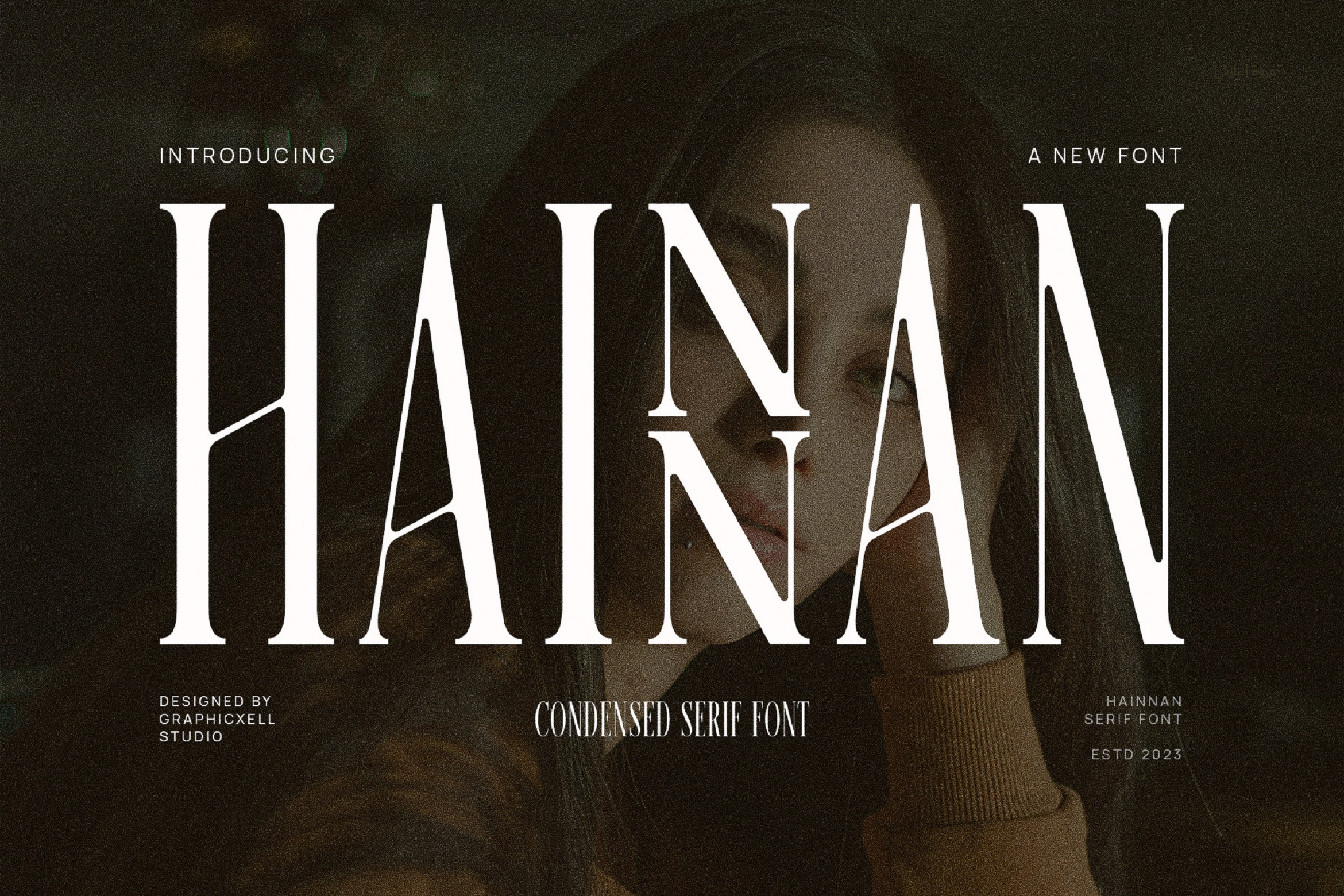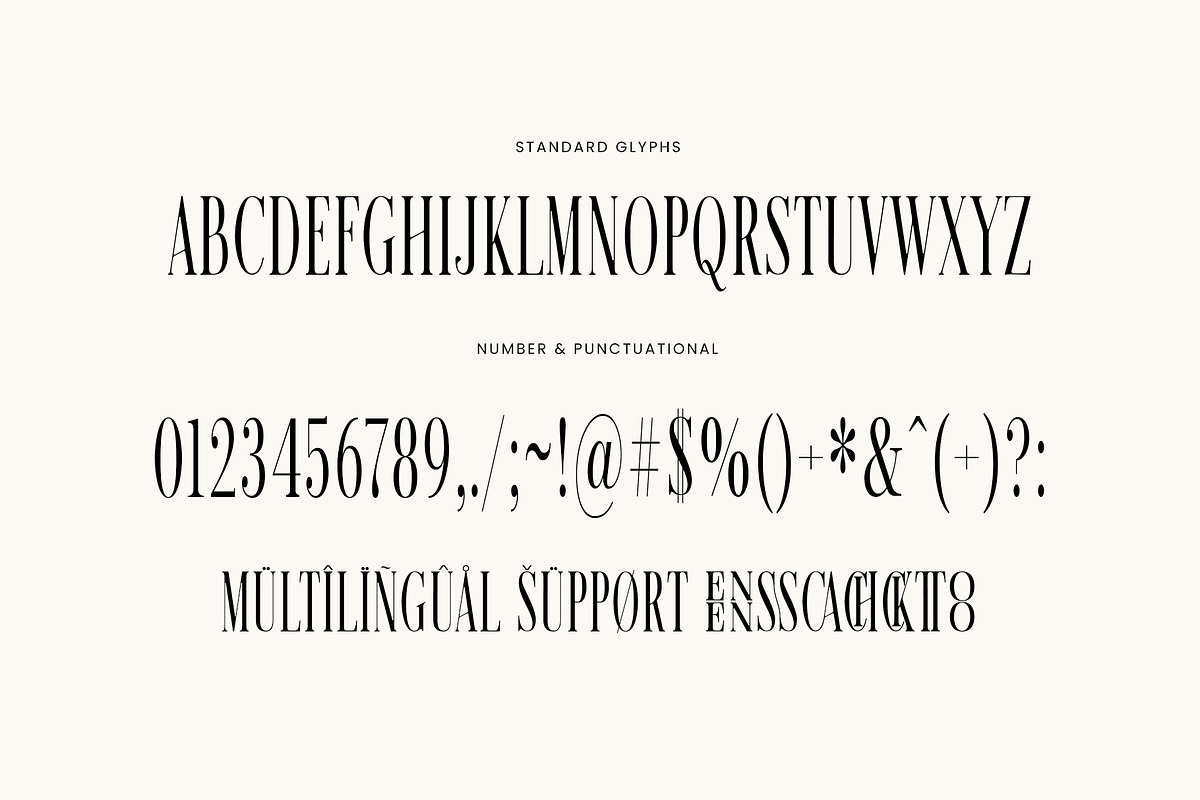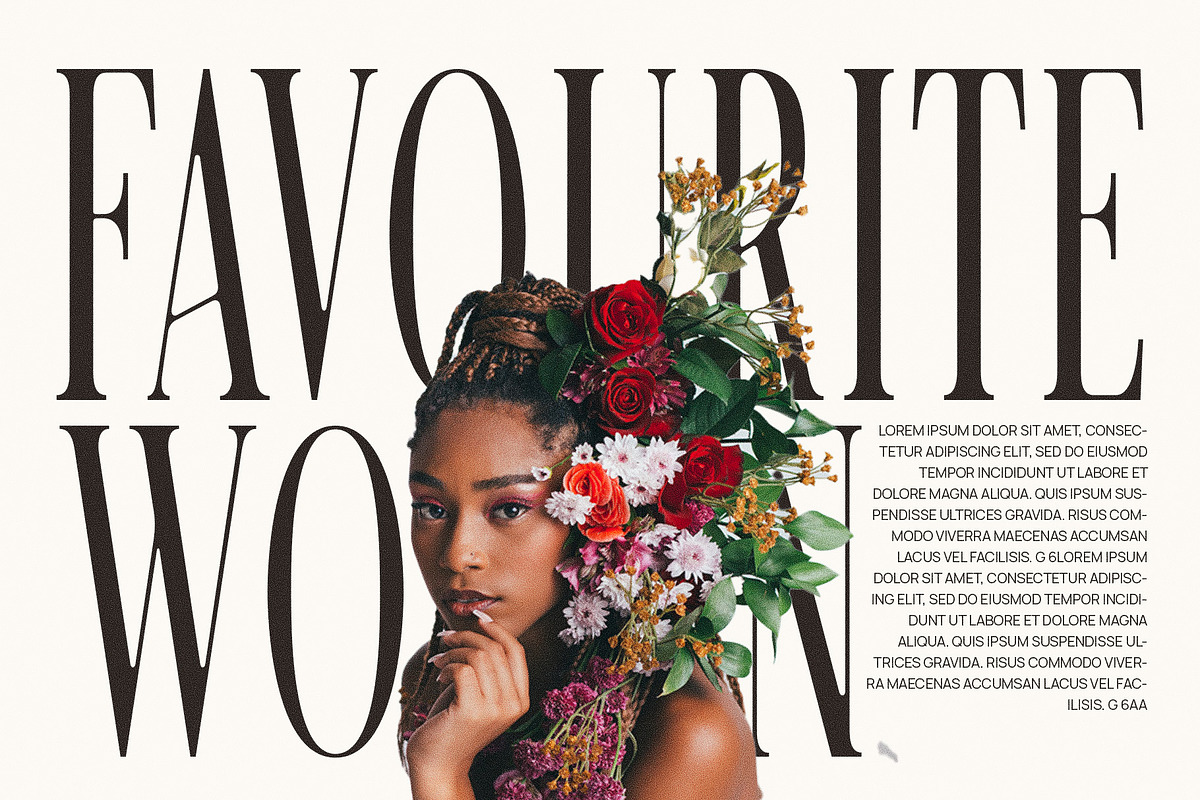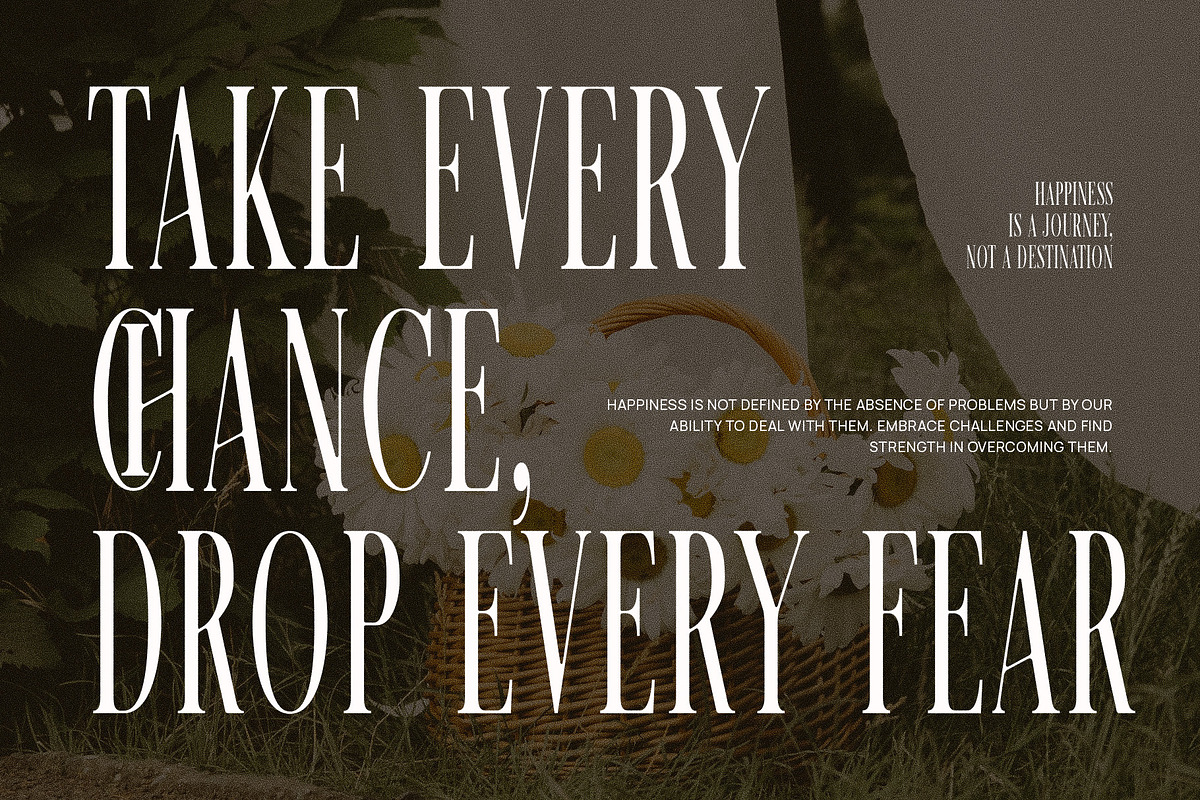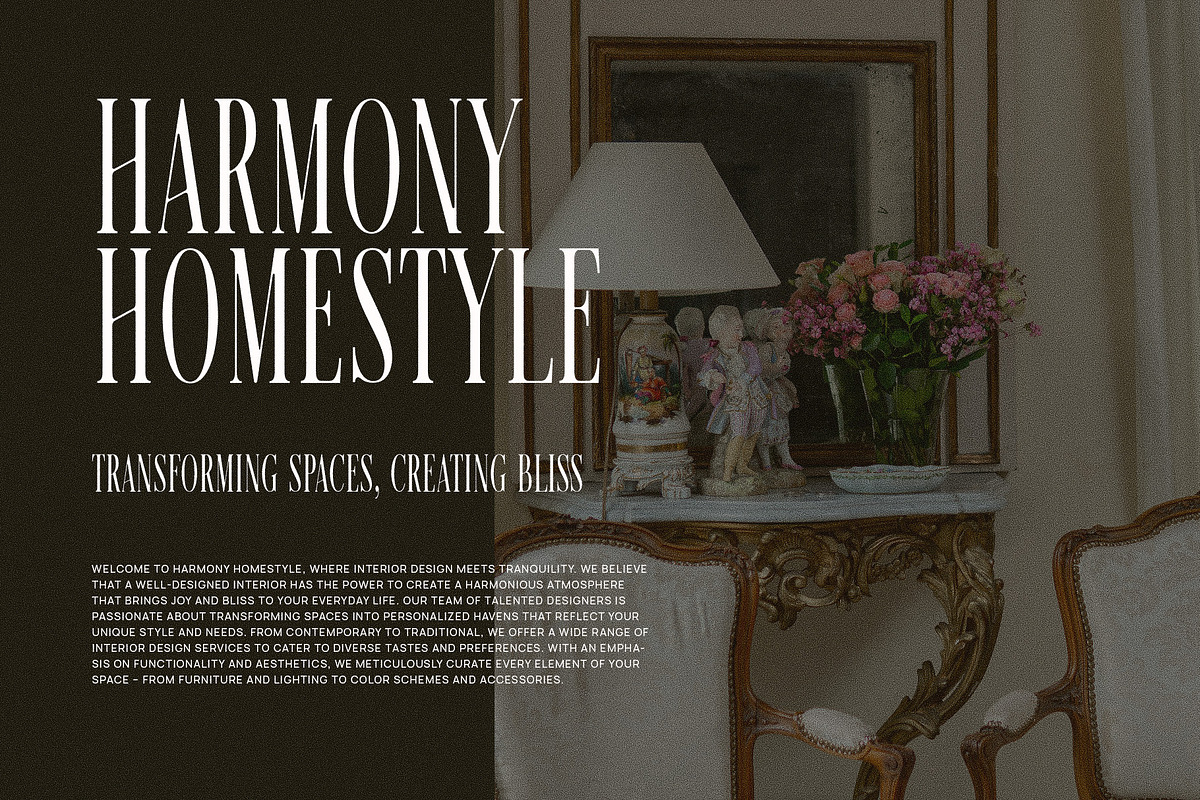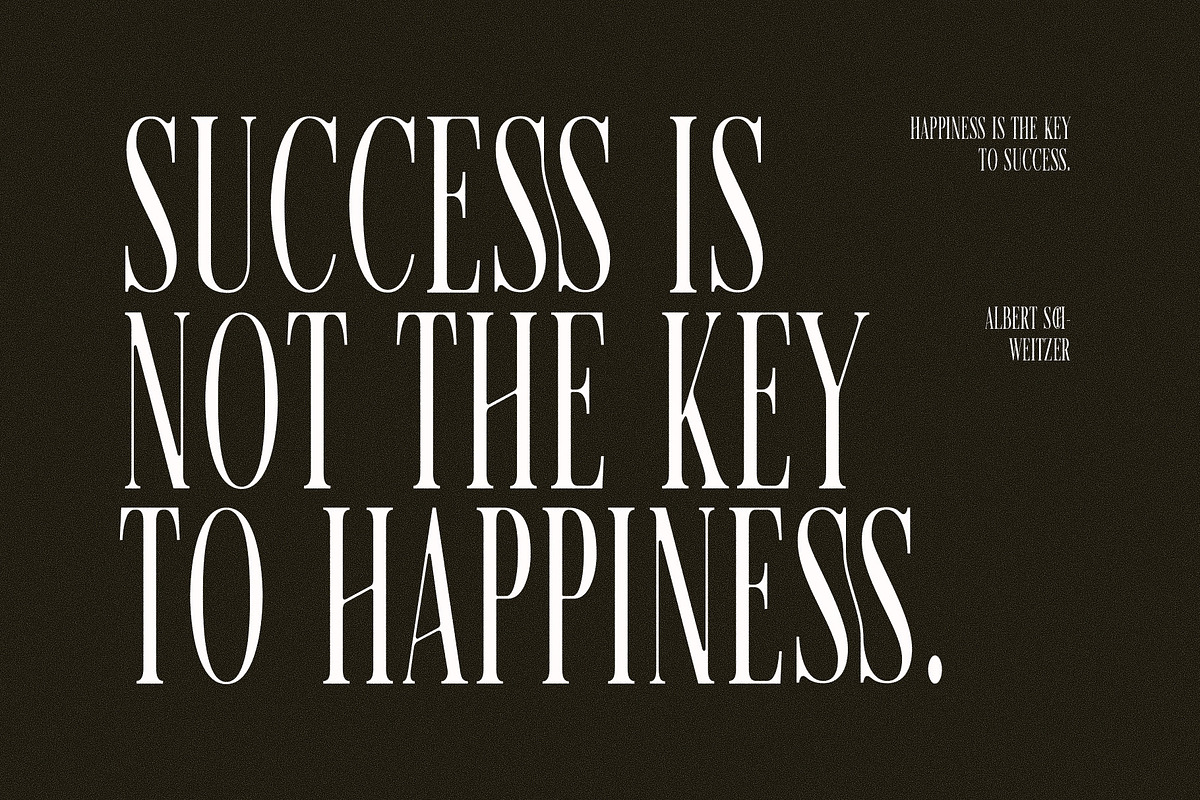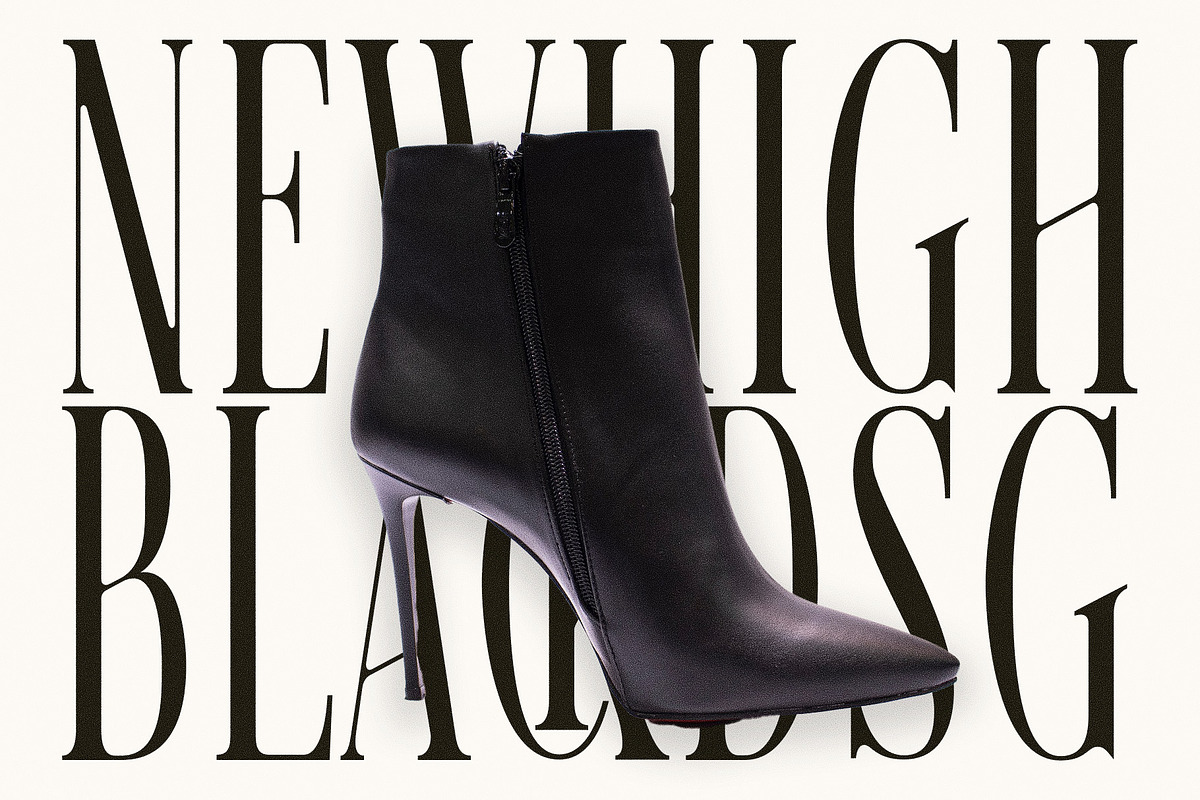
Hainnan Elegant Ligature Serif Font
Hainnan Elegant Ligature Serif Font is one of the variations of serif font styles with emphasis on the thickness transition. Its key character is the clear contrast in the thick and thin lines. It gives the font a strong impression and a more handsome look. Besides its ligature, another best thing you can see from this font is the slanted strips that give a unique but cool impression. This font is also identical to its high-form lettering style, making the Hainnan Elegant Ligature Serif Font best for branding projects or logos. However, it has a flexible application so that it is also suitable for any design project requiring an elegant font. With a straight form and shape, it looks neat and easy to read. In addition, this font also makes your design more condensed. Now, it’s time to use a new serif font to make your design more eye-catching. And the Hainnan Elegant Ligature Serif Font could be a perfect choice.